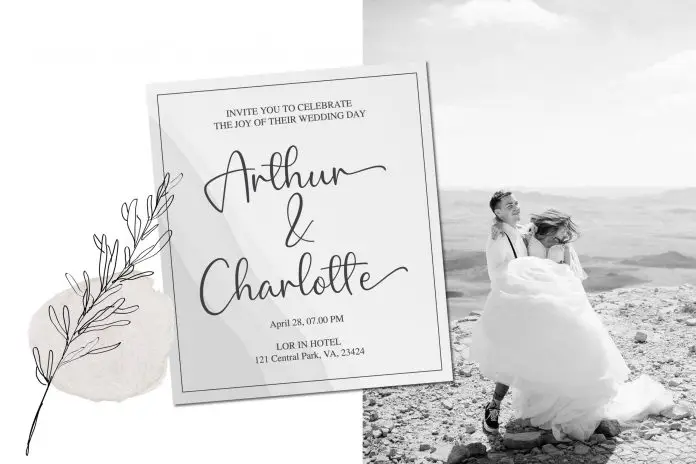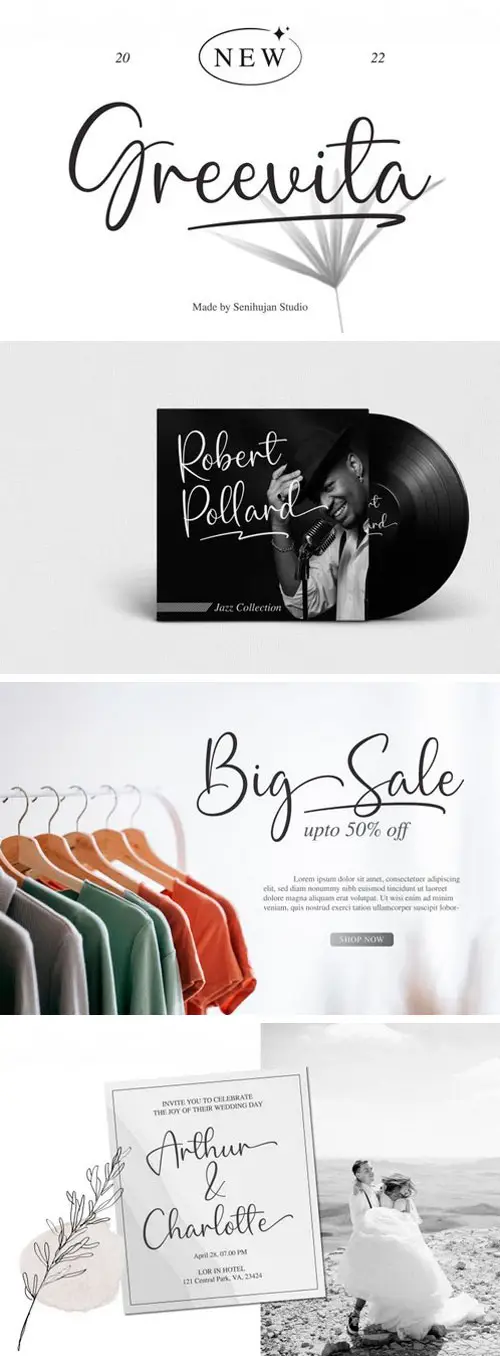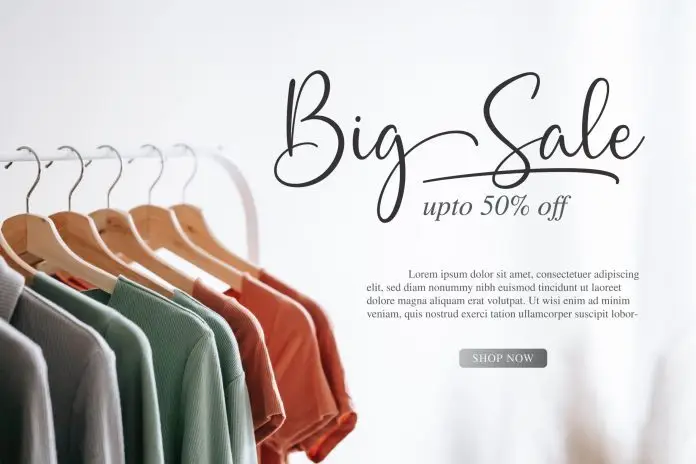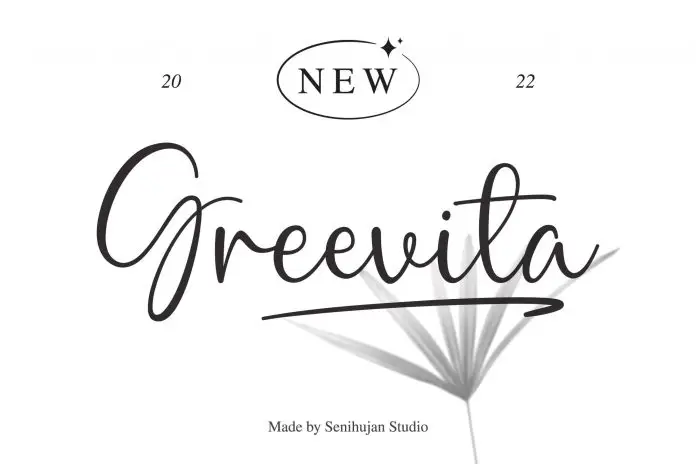
Greevita Script Font
Introducing the Greevita Script Font, a beautifully crafted typeface that combines elegance with a modern touch. This font features a flowing script style, perfect for adding a personal and artistic flair to your projects.
• Stylish script design
This font is ideal for branding, logos, invitations, and any creative project that requires a touch of elegance. Use it to create stunning visuals that stand out.